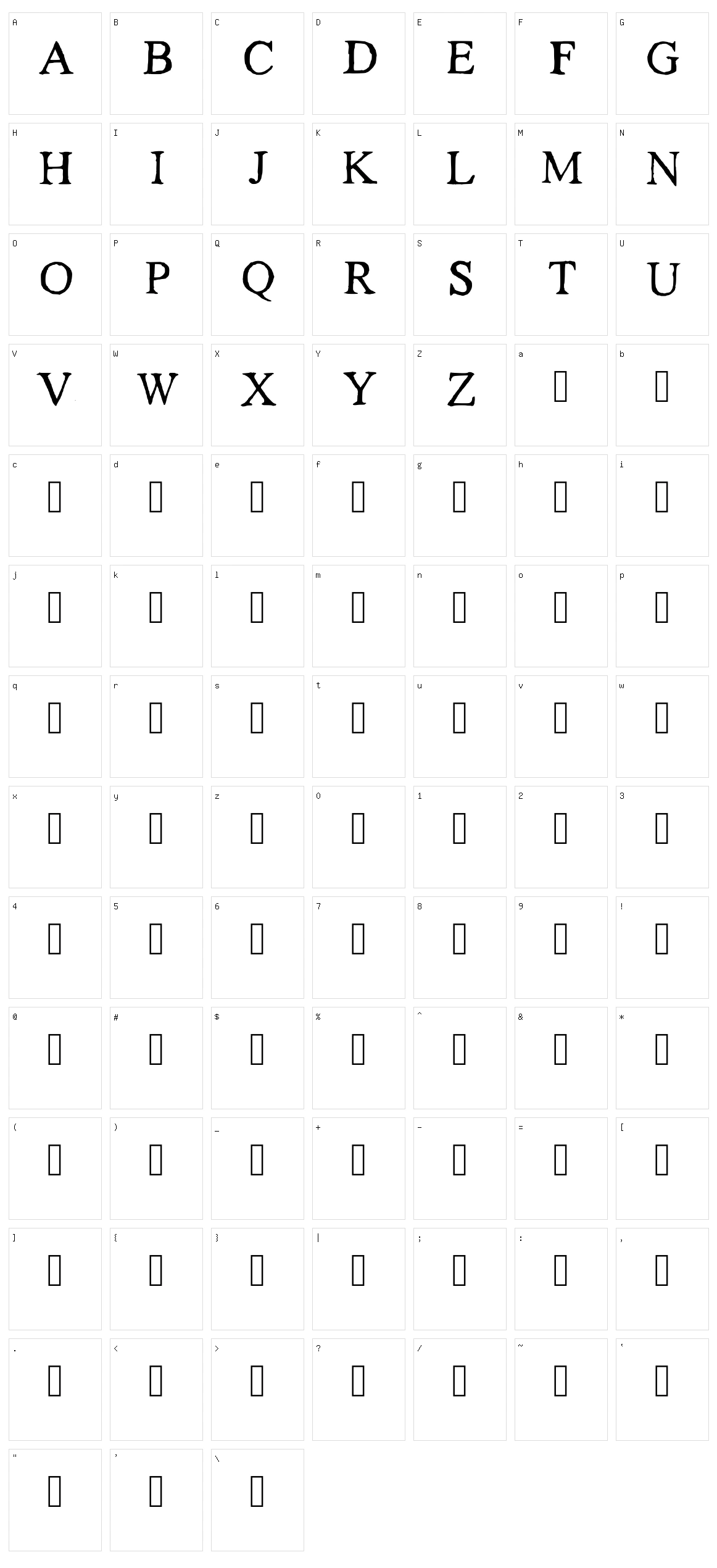
The free font Kalapitka is carefully designed by Michal Kokerski, showcasing a thoughtful balance of creativity and usability and falls under the Eroded font style. When you download the ZIP file, it contains only 9.51 KB of font files, making it lightweight and quick to download. Please review the license details below to understand permitted usage and distribution rights. If license information is not available, we recommend using this font for personal projects only or contacting the author directly for commercial usage permissions.